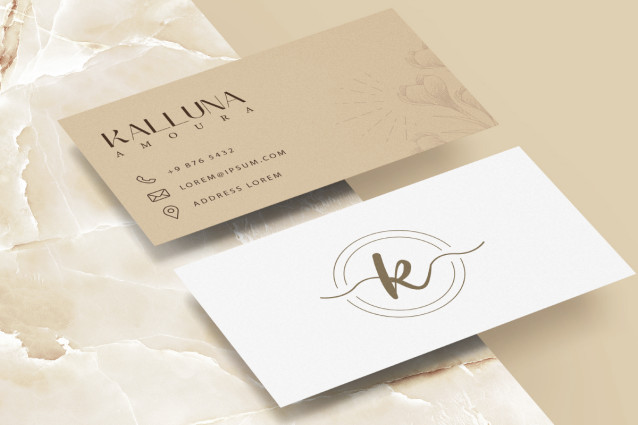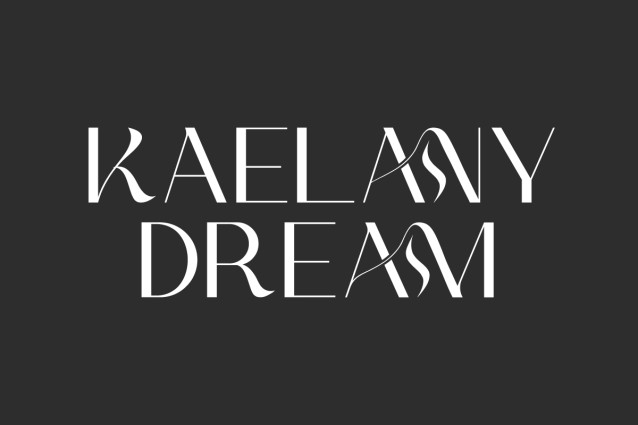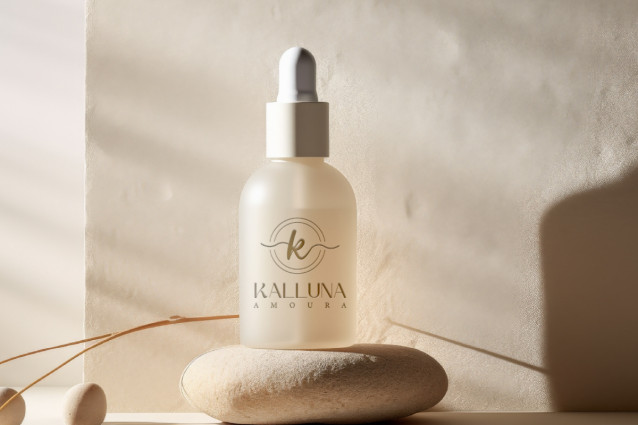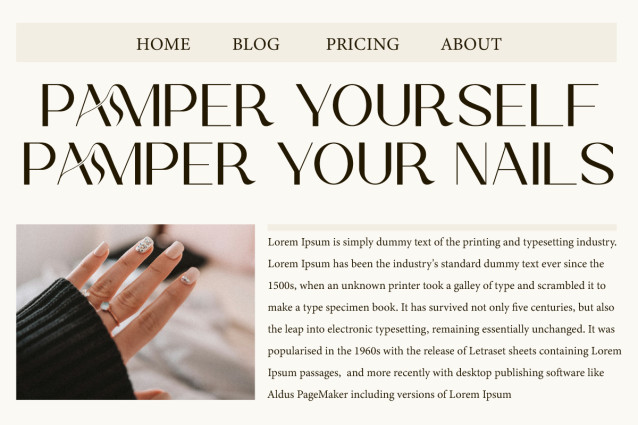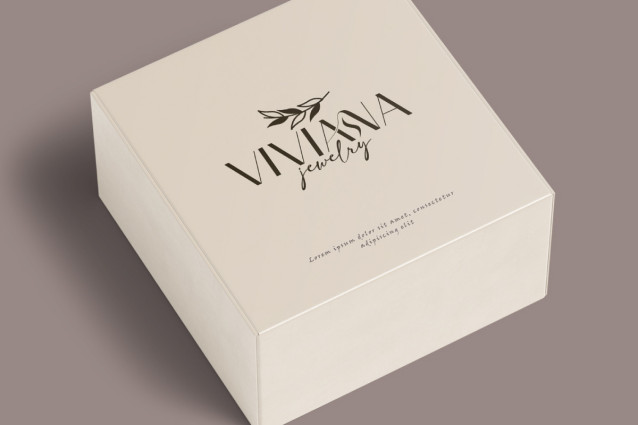
Kaelany Dream Font
Kaelany Dream Font is a sans serif font with an artistic touch that gives a luxury and dreamy impression. This font will be perfect for various projects, such as advertisement, blog, brand image, gift box, invitation, label, layout design, quotes, signboard, template design purpose, website, and many more.
Kaelany Dream Font includes full set of Uppercase and Lowercase Basic Characters, Numerals, Punctuation, Symbol, and Ligature character. The thin lines and dynamic curved elements create a captivating visual, making it a perfect choice for a variety of fields, such as fashion, beauty product, accessories and jewelry, cosmetic, event or wedding organizer, florist, furniture, real estate, spa salon, etc.